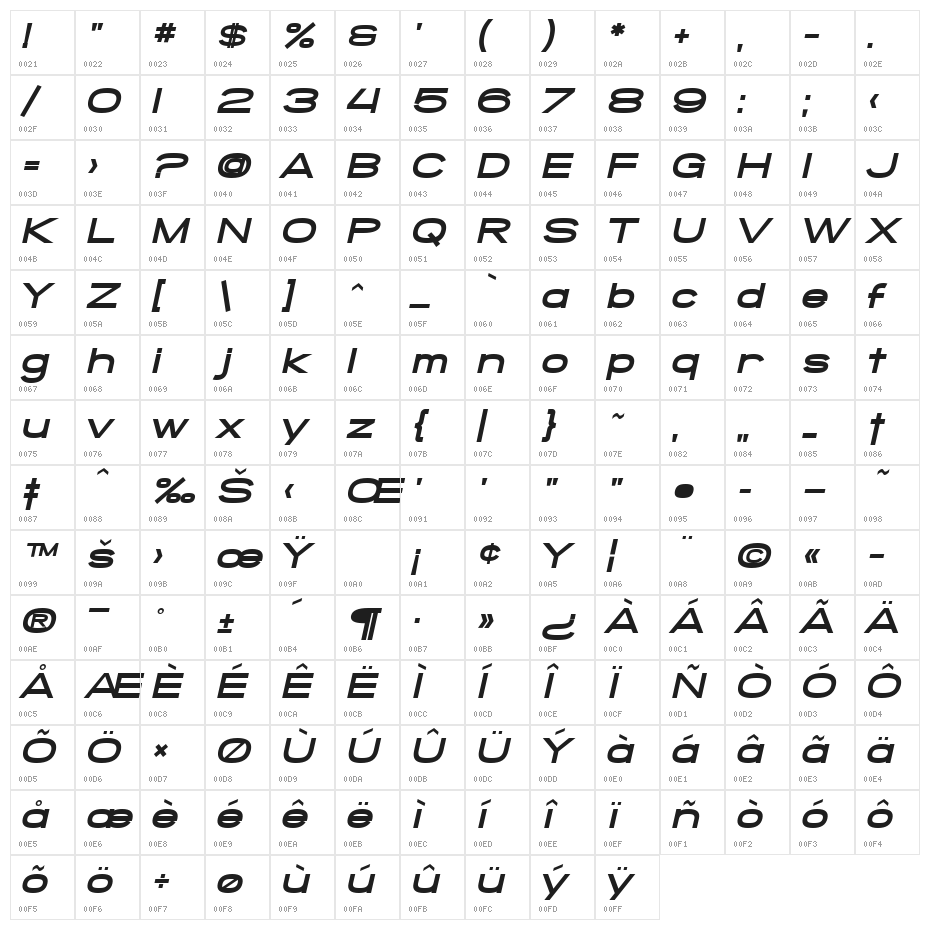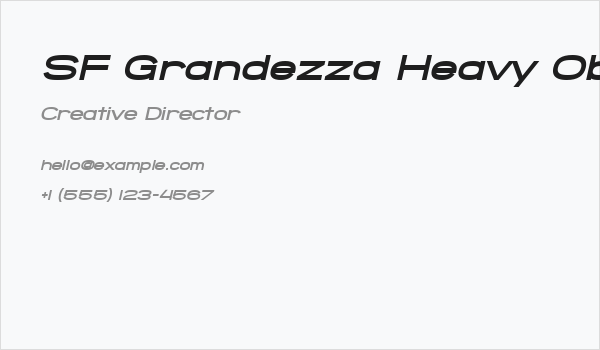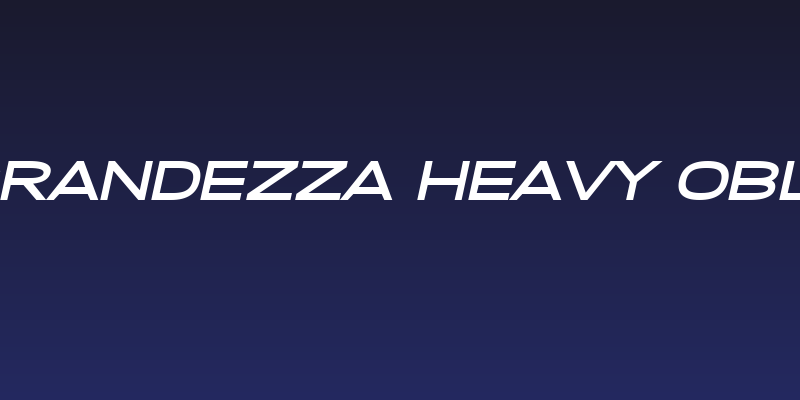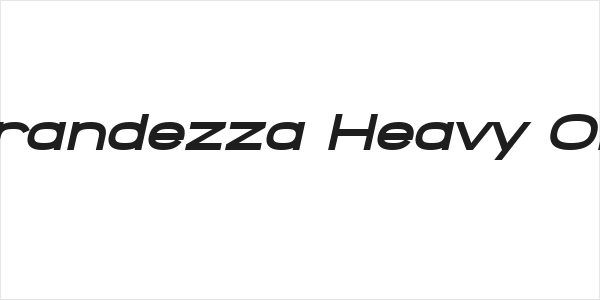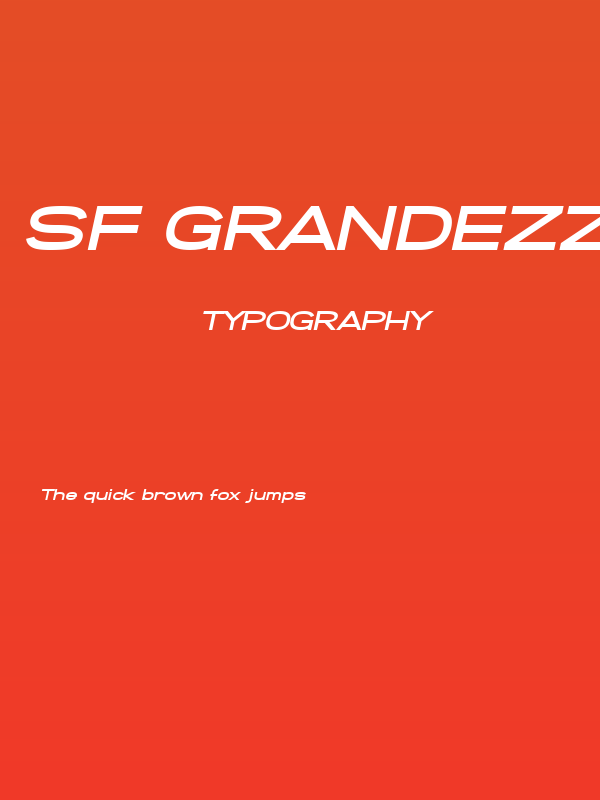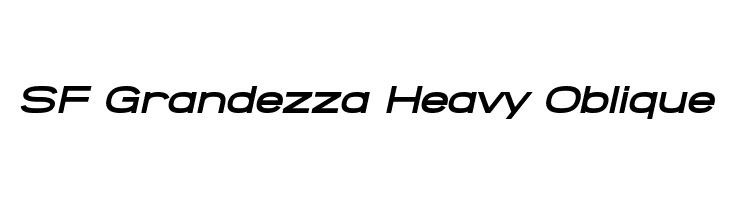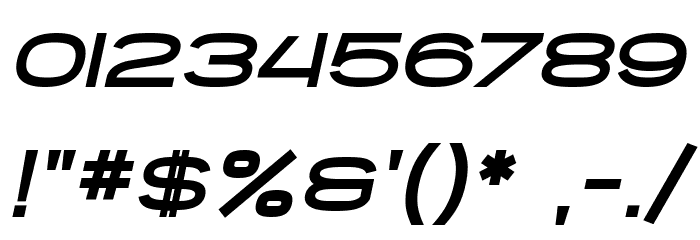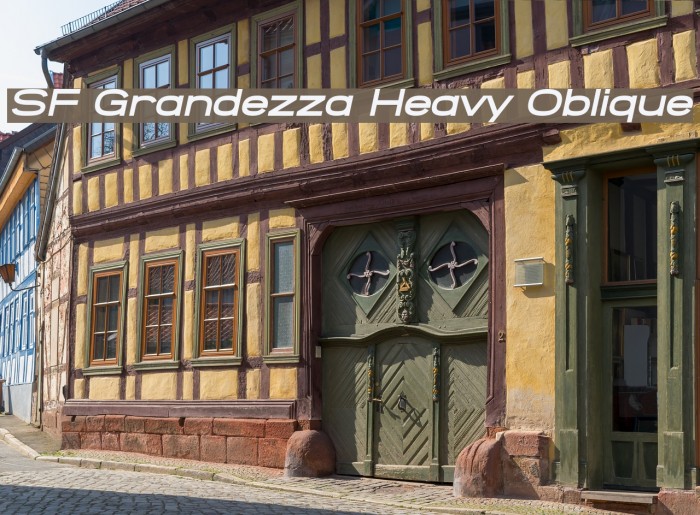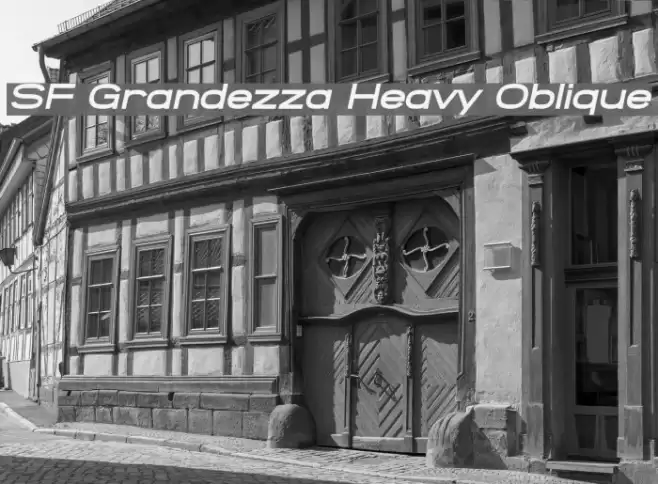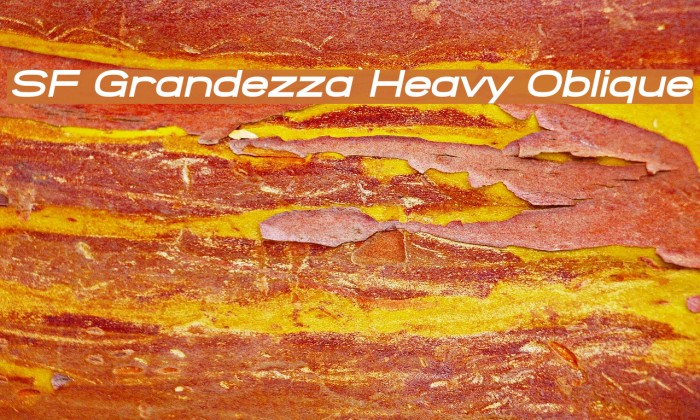
SF Grandezza Heavy Oblique Font
SF Grandezza Heavy Oblique Description
This font exhibits a bold and dynamic style with a pronounced oblique slant, giving it a sense of motion and energy. The characters are robust and heavy, providing a strong visual impact. The uppercase and lowercase letters maintain a consistent slant, enhancing the italicized appearance. The numerals and special characters follow the same design principles, ensuring uniformity across all glyphs. The overall design is modern and sleek, making it suitable for projects that require a contemporary and assertive look.
| Use Case | Headlines, Logos, Advertising |
| Proposed Projects | Ideal for branding, advertising, headlines, and any design that requires a strong, modern aesthetic. |